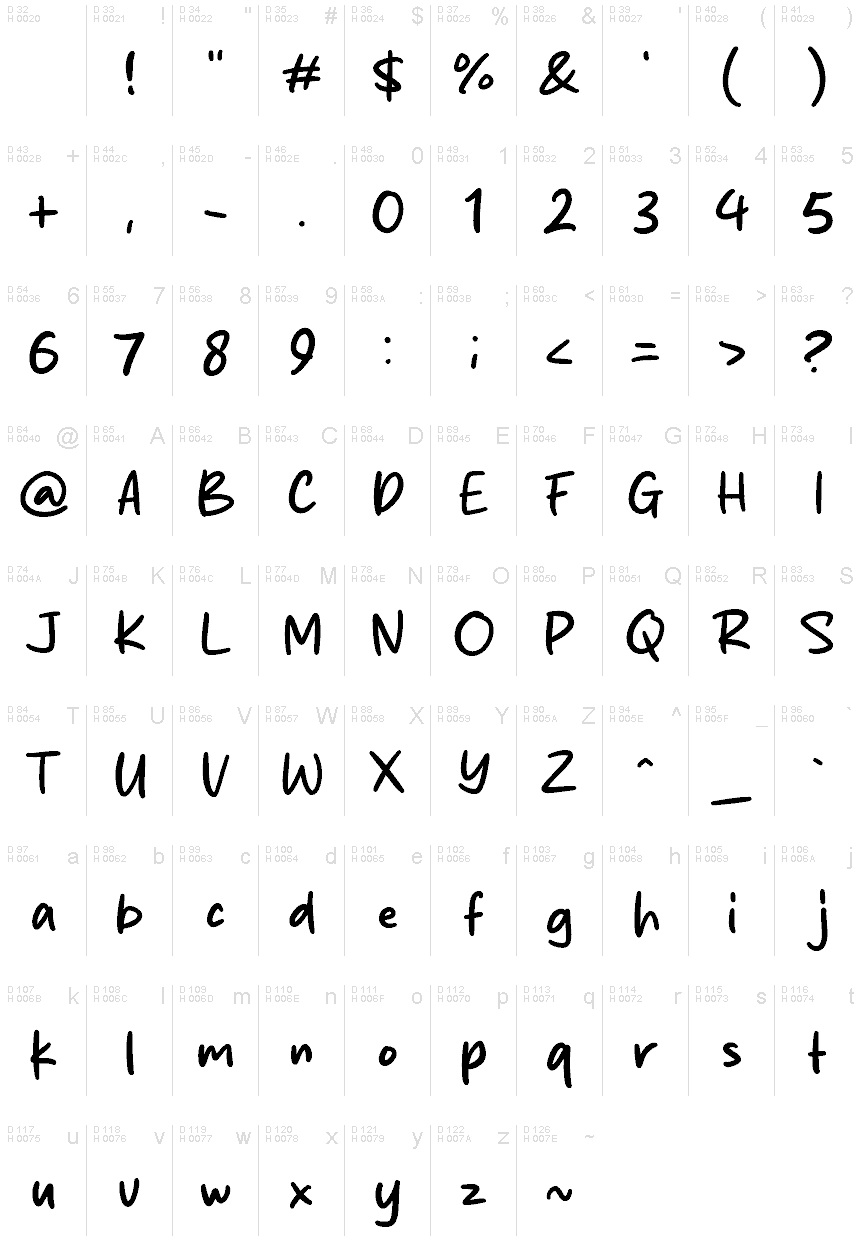
Rich Potato
Rich Potato font by MJType is a free handwritten font that captures a casual yet modern aesthetic. Balancing approachable mood elements with a friendly vibe, this typeface truly finds beauty in simplicity. Its imperfections, visible in its short irregular strokes, help craft characters that appear authentic to the human eye.
The all-purpose font lends itself effortlessly to multiple design queries. Think logos, quotes, stationery ideas like notebooks and greeting cards, business presentation suggestions such as letterhead too, or even social media content like stories and posts. Add the typeface to your website designs as well as books and magazine pages.